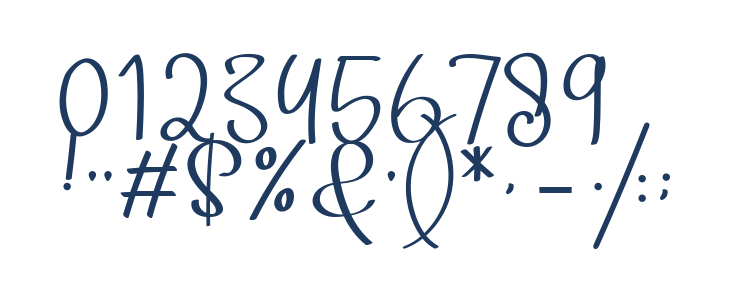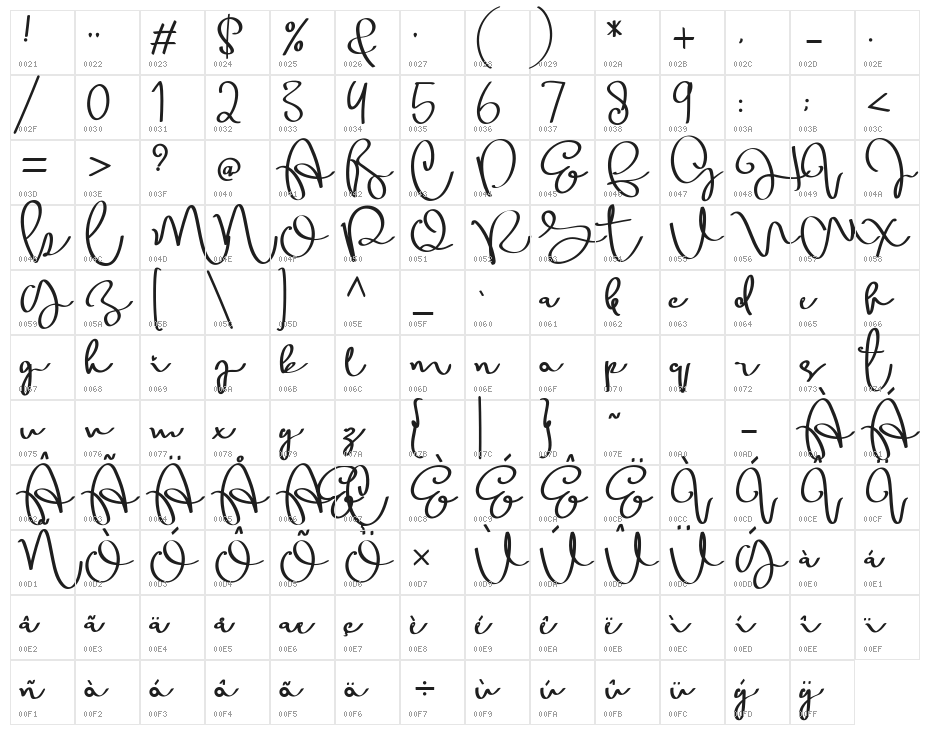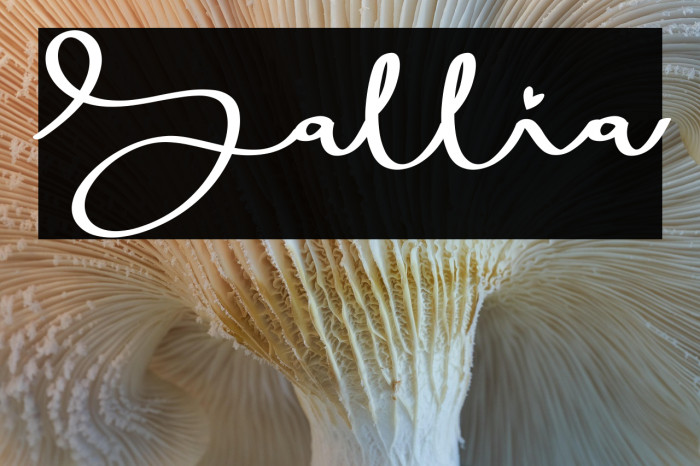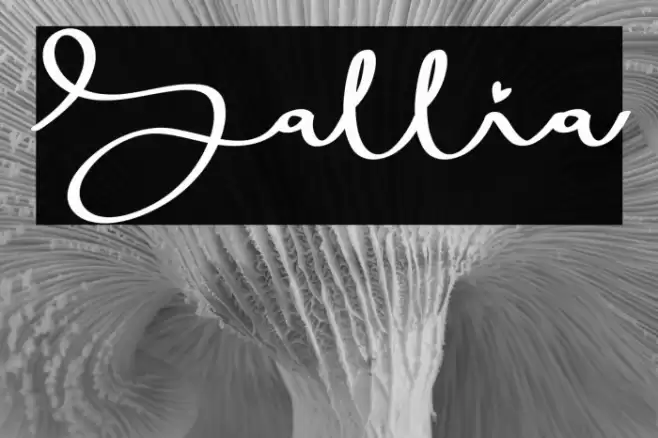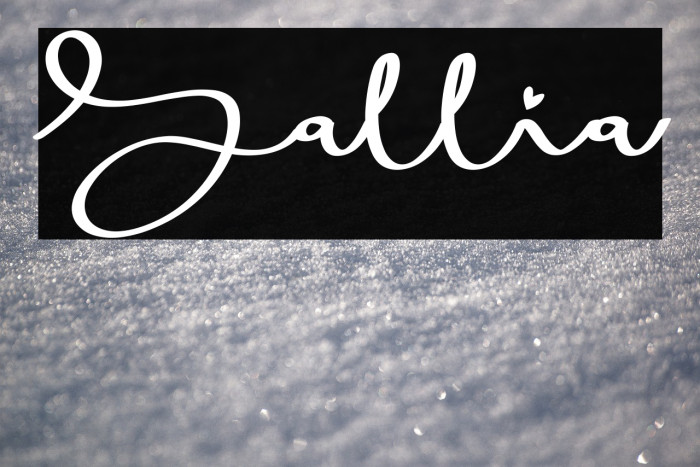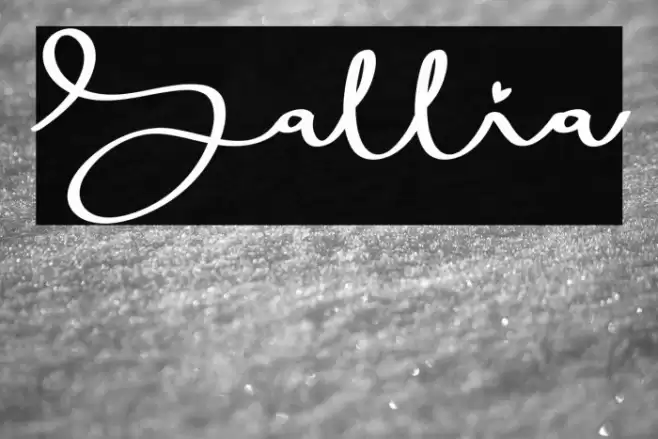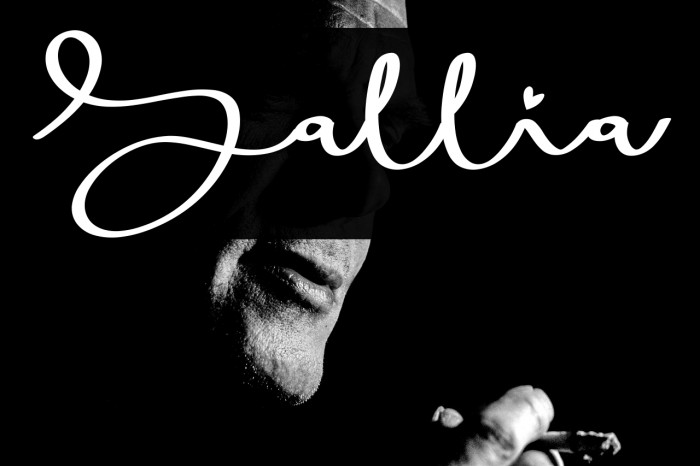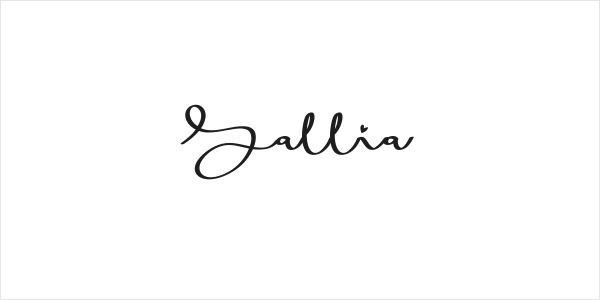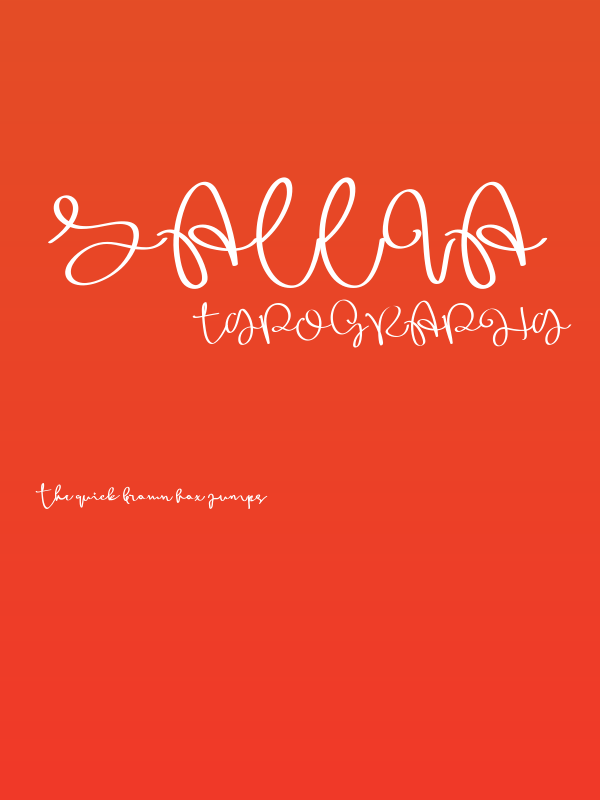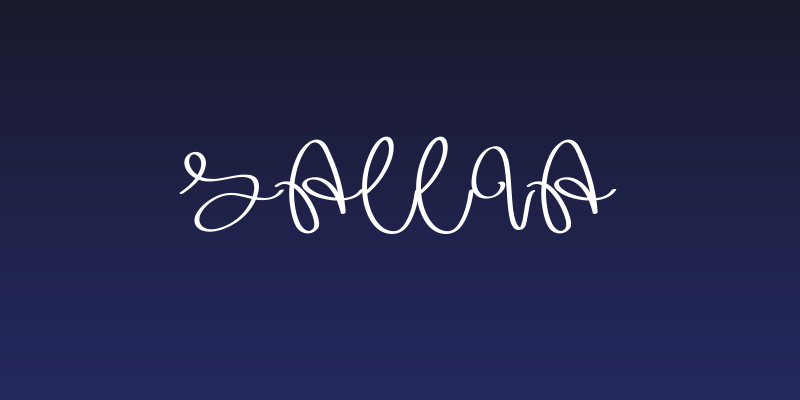
Sallia Font
Sallia Description
This font features a playful and whimsical handwritten style, characterized by its fluid and continuous strokes. The uppercase letters are elegantly looped, while the lowercase letters maintain a consistent flow, giving the font a cohesive and artistic appearance. The numerals are bold and slightly tilted, adding to the casual and friendly vibe. Special characters are creatively integrated, maintaining the overall aesthetic. The font's unique charm makes it suitable for creative projects that require a personal touch.
| Proposed Projects | Ideal for greeting cards, invitations, personal branding, and creative social media graphics. |